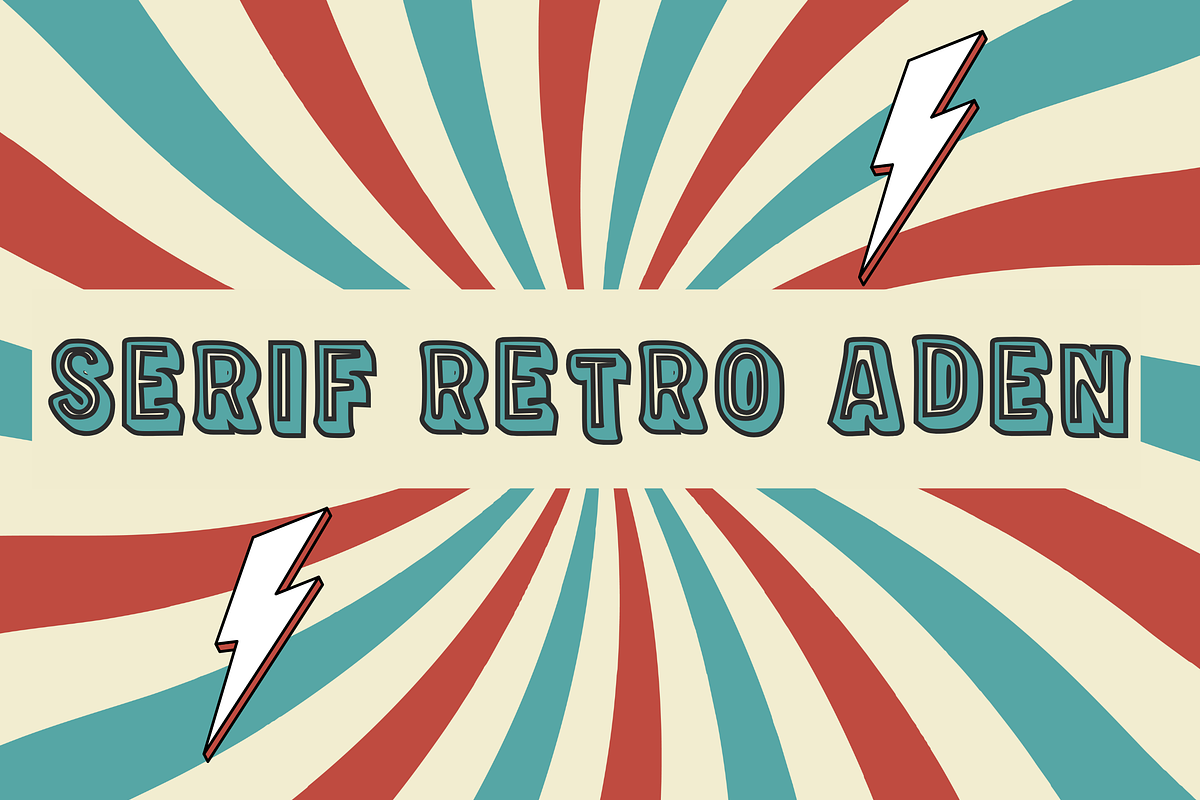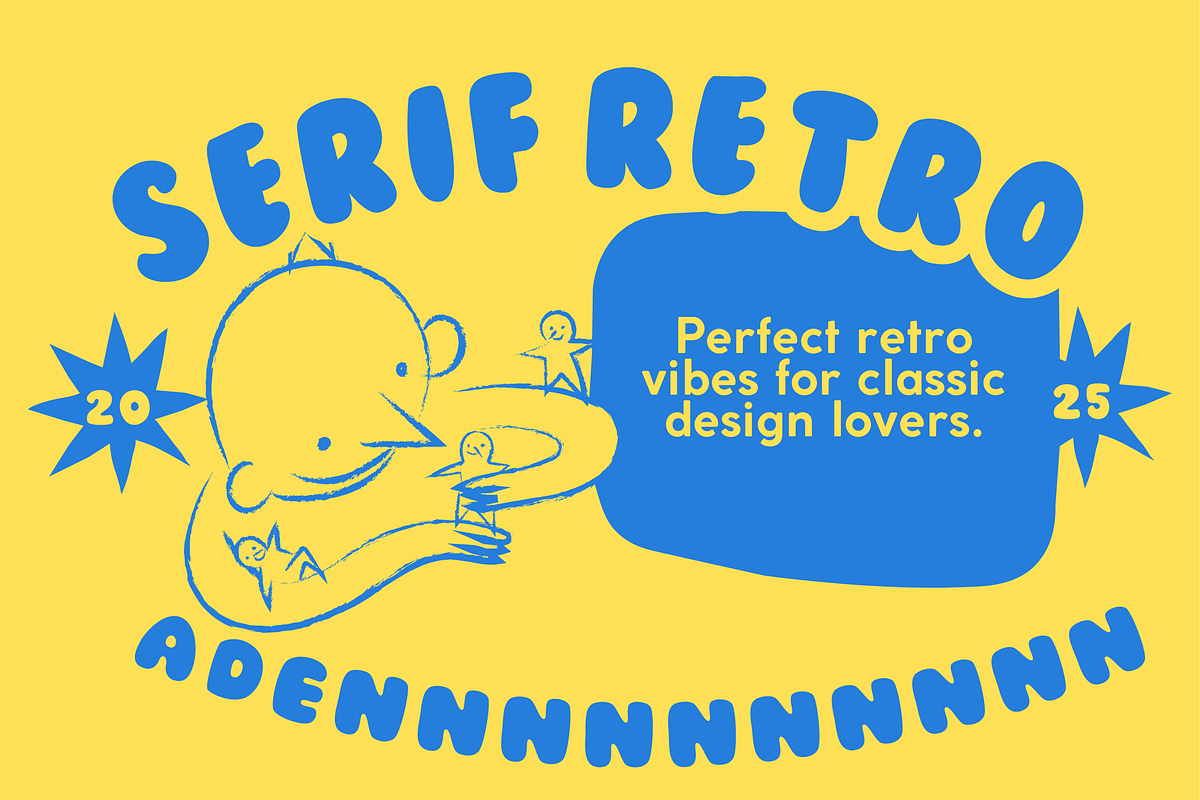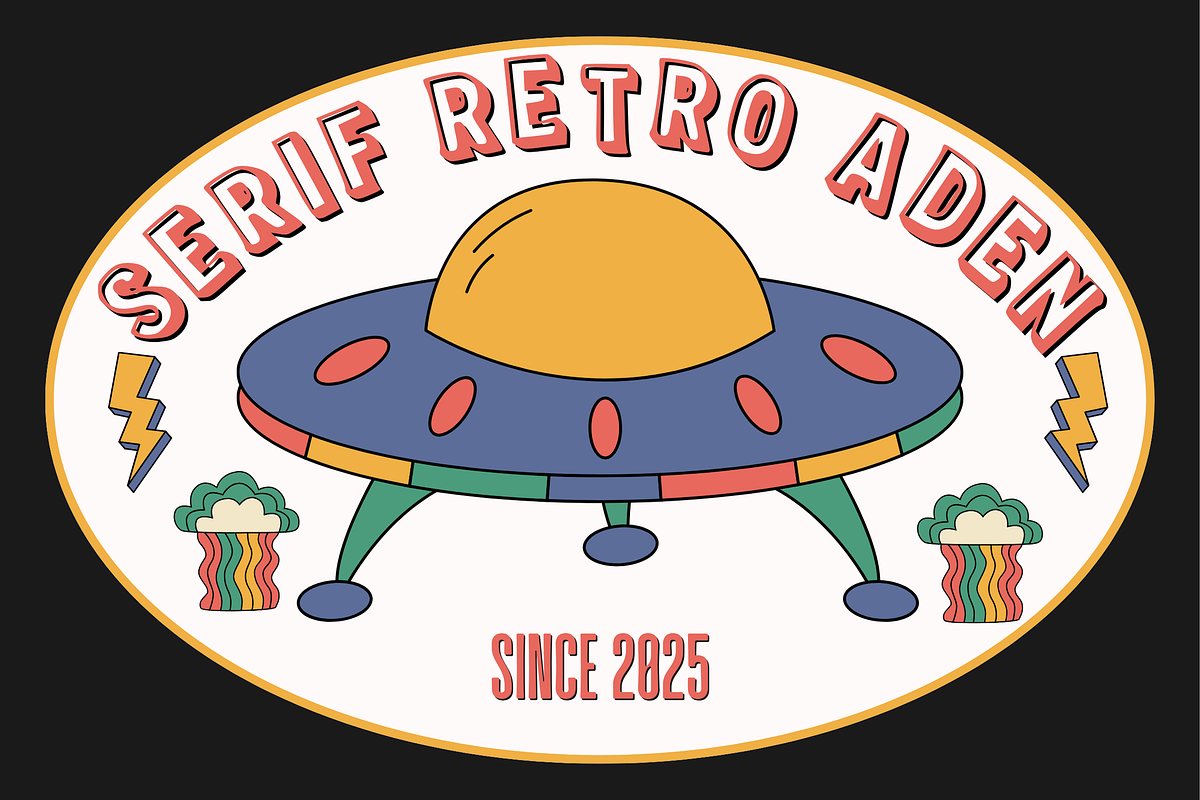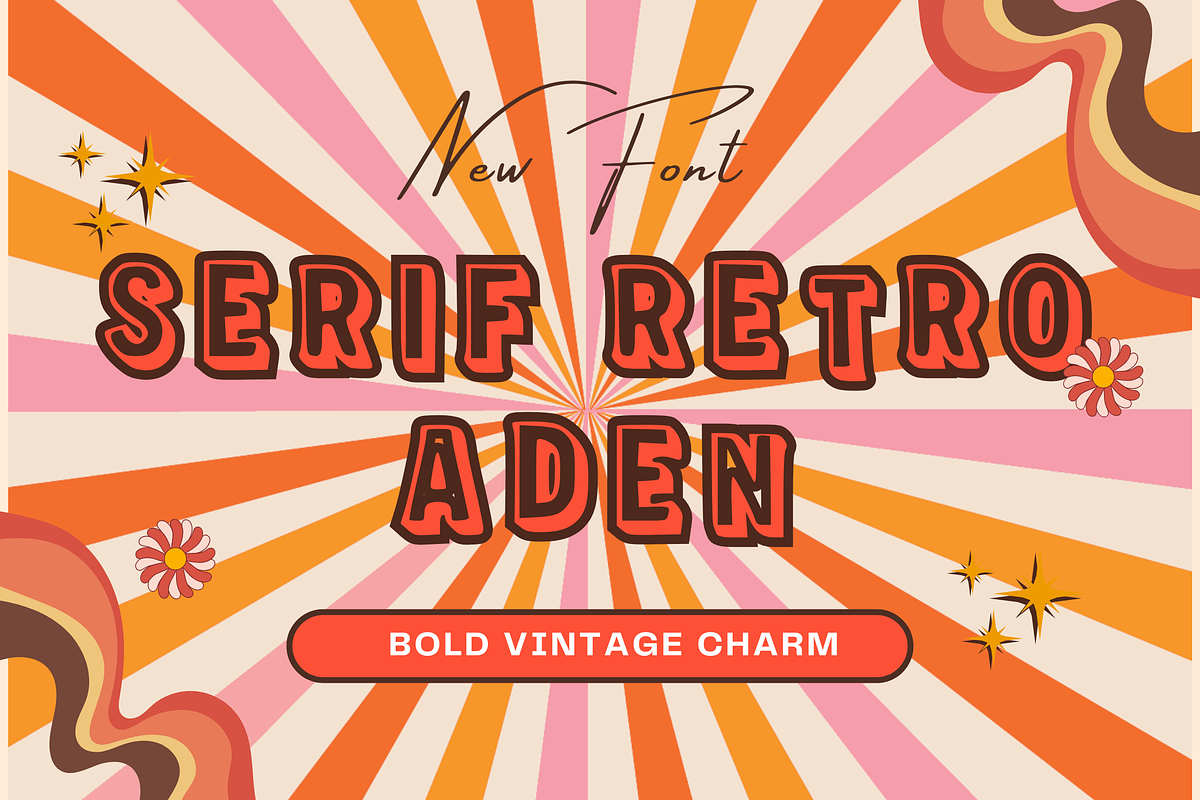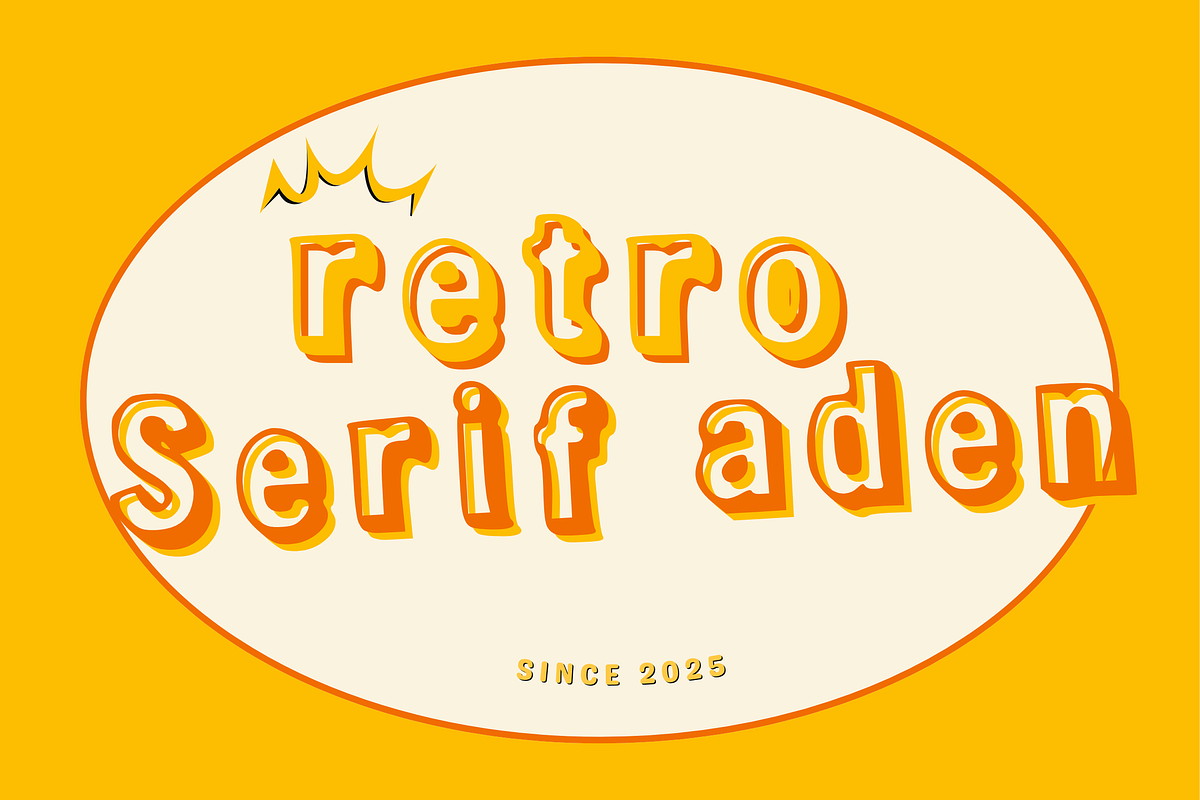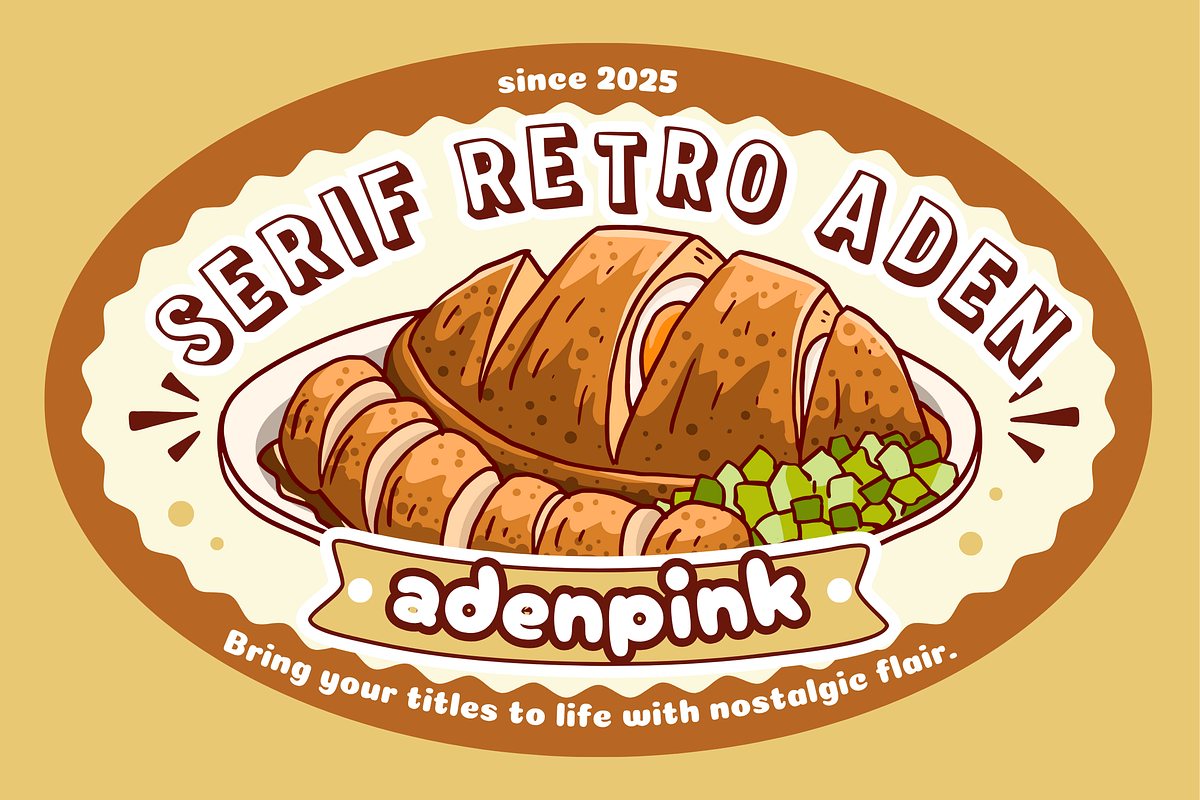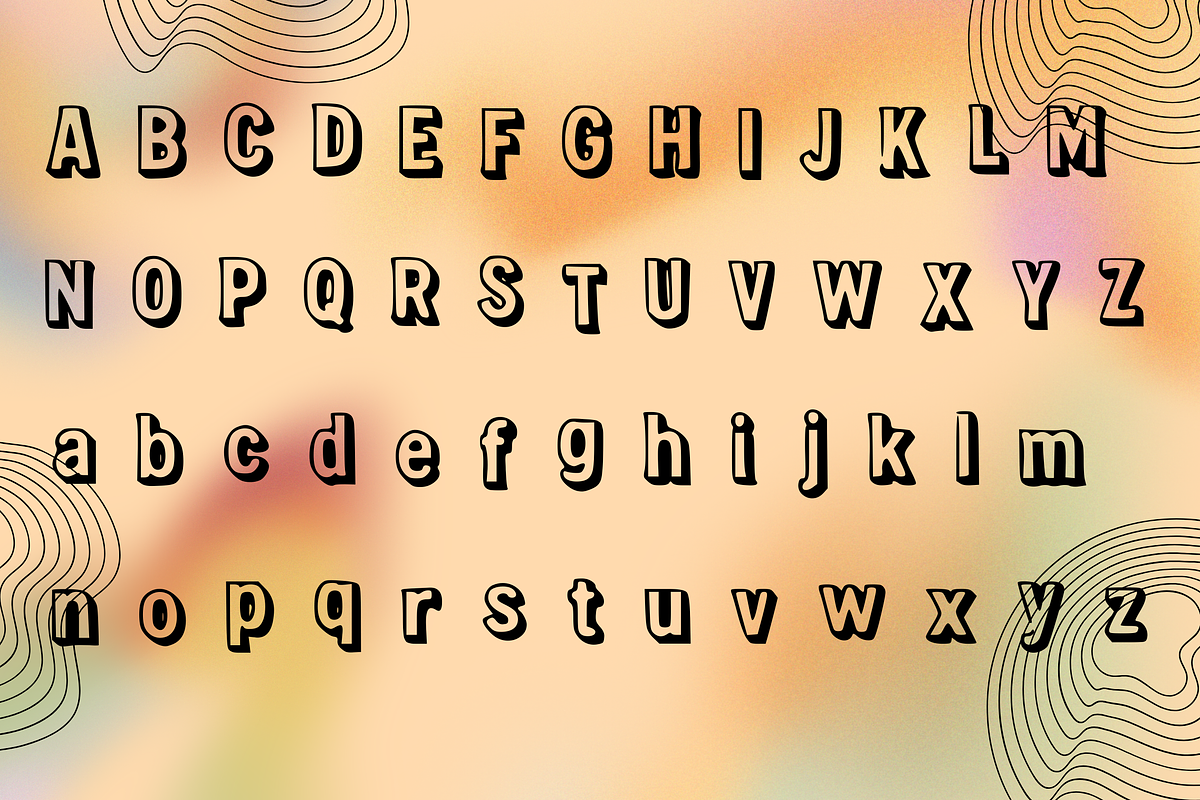
Serif Retro Aden Timeless Vintage
Bring a touch of classic charm to your creative projects with Serif Retro Aden – a beautifully crafted retro-style typeface designed for designers, creators, and brands that love timeless aesthetics. Perfect for logos, posters, packaging, apparel, digital products, and web design, this font adds a nostalgic yet elegant flair to any layout.
Whether you're crafting a vintage label, creating a retro-inspired website, or designing stylish social media visuals, Serif Retro Aden delivers versatility and sophistication in every letter. The package includes both OTF and TTF files, ensuring smooth compatibility across your favorite design software.
Ideal for creative professionals, digital artists, and branding experts, Serif Retro Aden is your new go-to choice for projects that need a blend of modern usability and old-school beauty.